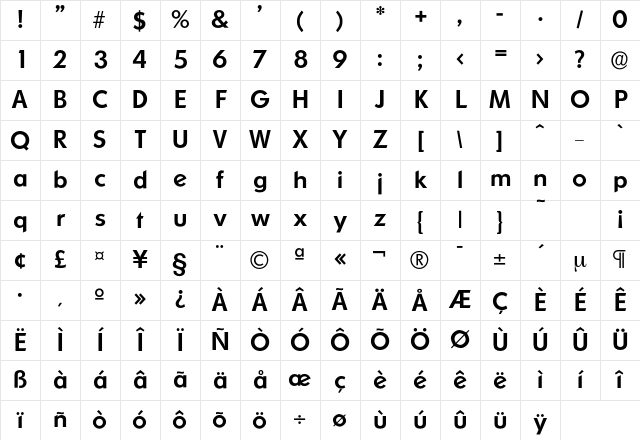
Ornitons-Medium Regular
Design Context for Ornitons-Medium
Ornitons-Medium is a composed and adaptable typeface that performs quietly and consistently across a wide range of design contexts.
Pro Tip: Use Ornitons-Medium in both headline and body roles to test its range before committing to a single application.